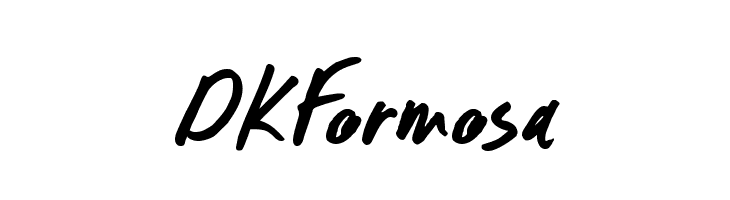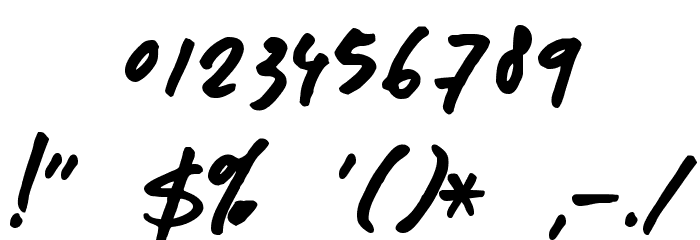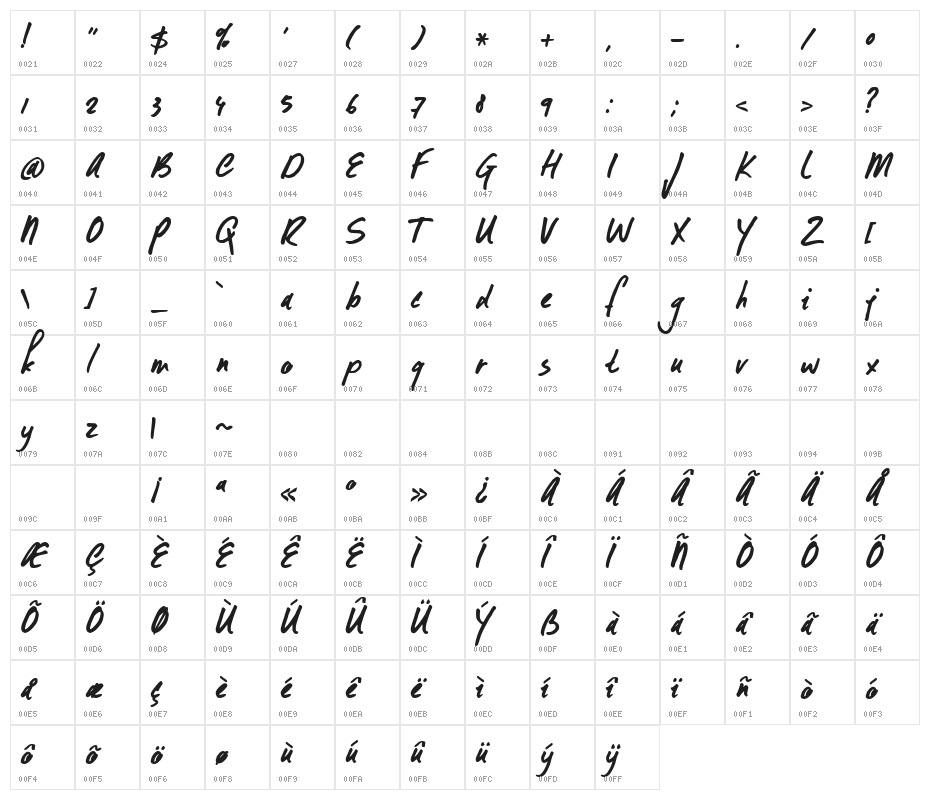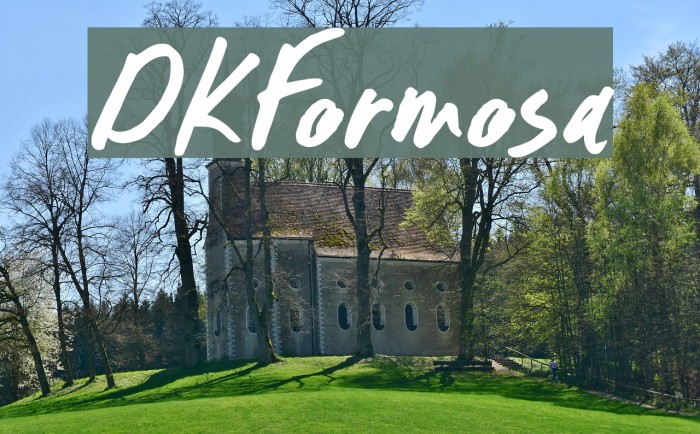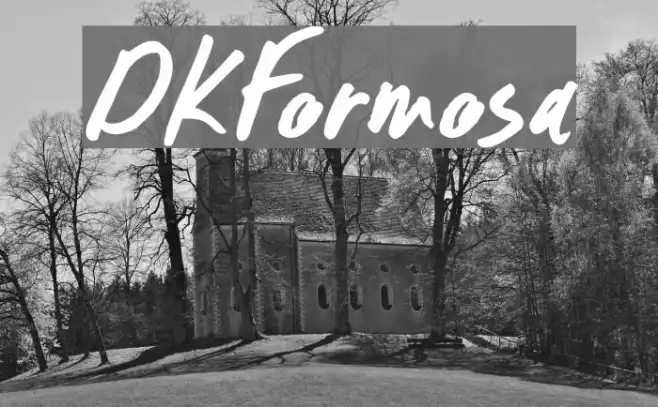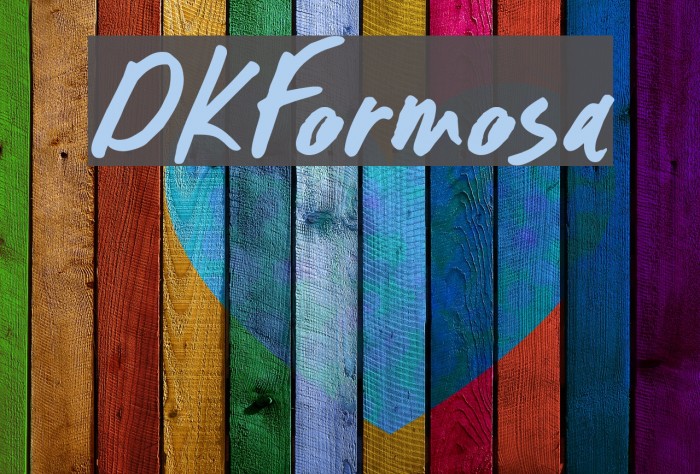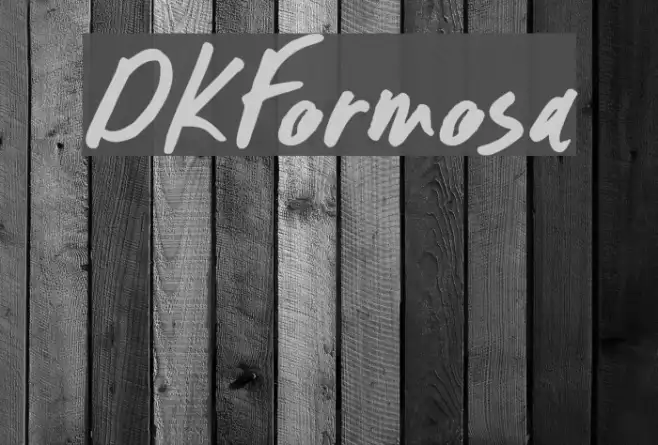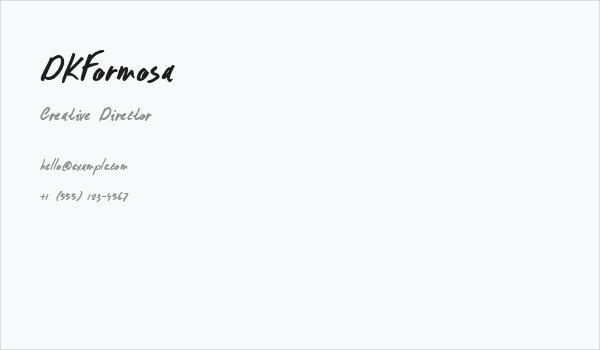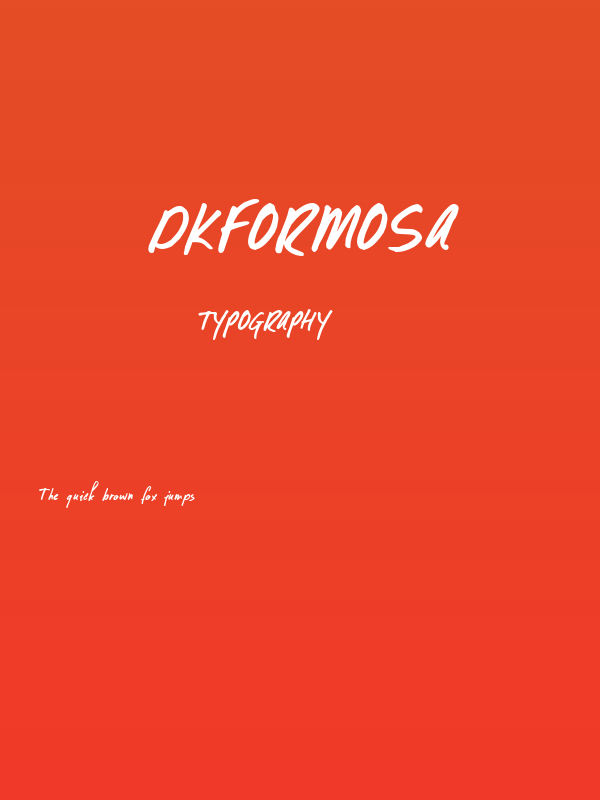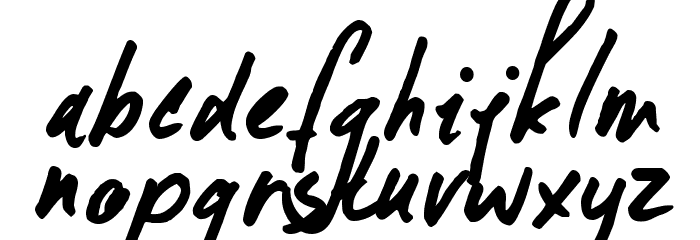
DKFormosa Font
DKFormosa Description
This font features a dynamic and energetic handwritten style, characterized by its fluid and natural strokes. The letters are slightly slanted, giving a sense of movement and spontaneity. The uppercase and lowercase letters maintain a consistent style, with rounded edges and varying stroke widths that mimic the natural flow of handwriting. Numbers and special characters are crafted with the same lively touch, ensuring a cohesive look across all elements. The overall appearance is casual yet expressive, making it suitable for projects that require a personal and approachable feel.
Overall StyleCasual
Use CaseLogos, Headlines, Informal text
Proposed ProjectsIdeal for greeting cards, personal branding, social media graphics, and informal invitations.